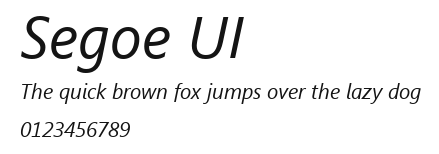
Segoe UI Preview
• Font Name: Segoe UI
• Font Style: Italique
• Font ID: Segoe UI Italic
• Full Font Name: Segoe UI Italique
• PostScript Name: SegoeUI-Italic
• Manufacturer: Microsoft Corporation
About Segoe UI.ttf
Segoe UI.ttf is a modern, elegant sans-serif font designed for ultimate readability and visual harmony. Perfect for branding, headlines, web design, and print materials.